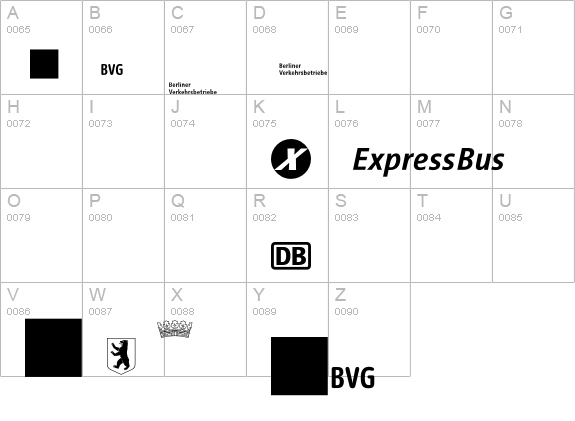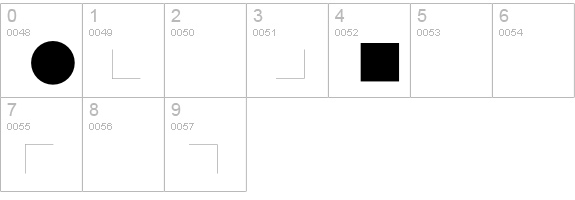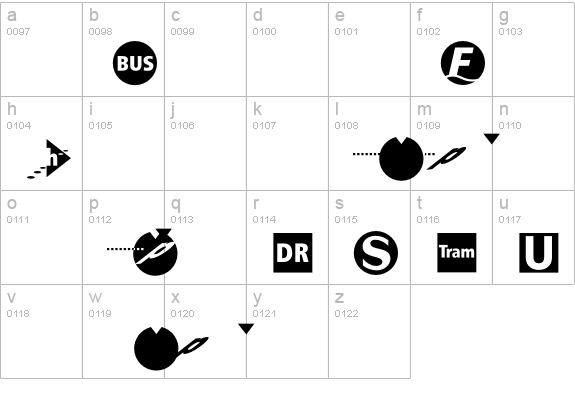
BVGProdukt Font Details
Introducing BVGProdukt font - a stylish and versatile typeface that effortlessly combines modern elegance with timeless sophistication. With its clean lines and sharp edges, this font exudes a sense of professionalism and creativity, making it perfect for a wide range of design projects. What sets BVGProdukt font apart is not only its striking appearance, but also the fact that it is available for free download at FontsMarket.com. This means that you can easily access this high-quality font for your projects without any cost, allowing you to elevate your designs with ease and convenience. Whether you're working on branding materials, advertising campaigns, web design, or any other creative project, BVGProdukt font is sure to make a lasting impression. Its bold and distinctive character will help your designs stand out and leave a lasting impact on your audience. Download BVGProdukt font today from FontsMarket.com and unleash your creativity with this exceptional typeface that combines beauty and functionality seamlessly.